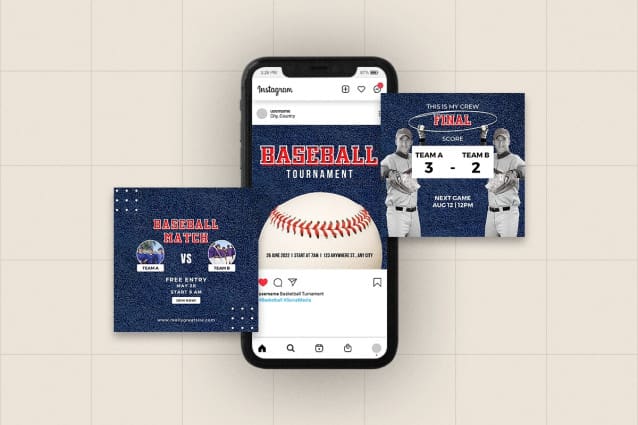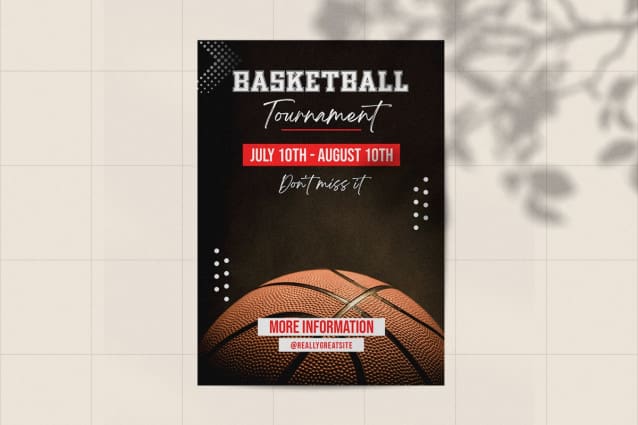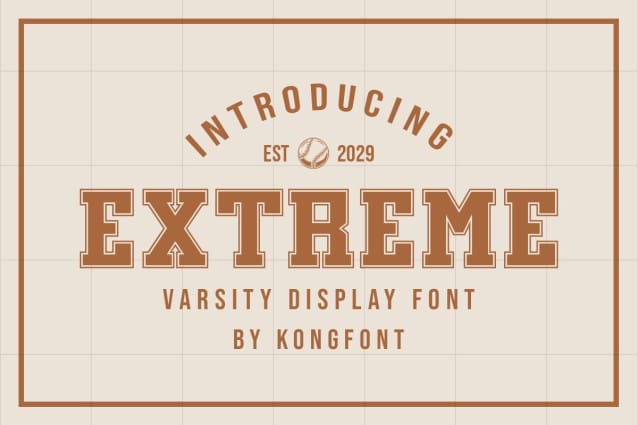
Extreme Font
Extreme Font – Modern Display Font was created to present a simple and modern impression to anyone who sees it. This is in line with the characteristics of the letters in the Extreme Font is very clean without unnecessary knick-knacks in each letter. This font stands tall and exudes a confident vibe. People who read various texts using this type of font don’t need to bother to be able to read and understand this font. In other words, Extreme Modern Display Font is legible.
As the name suggests, Extreme Font is proper for sports typeface. Those who like simple letters but are still cool will choose this letter. Modern vibes can use on hats, jerseys, tickets, and merchandise. This font can be printed small or large and still looks great from close up or afar. This font can be used for magazine covers and reading books.
Not only that, Extreme Modern Display Font can be used as a digital font. It can be the video intro title and outro. This font is suitable for product branding. These can be product brand tags and advertising posters. This font can also use as a business card.